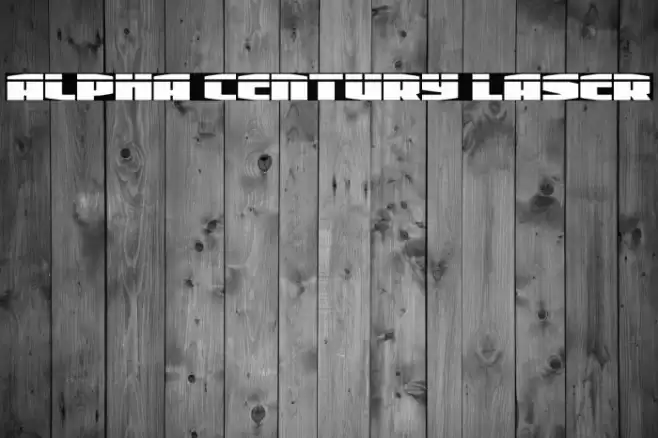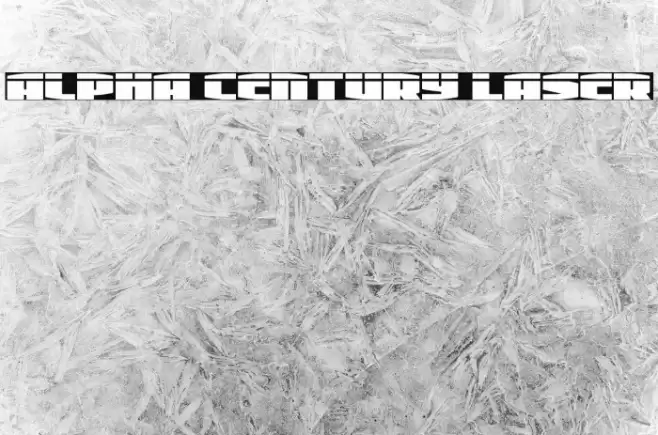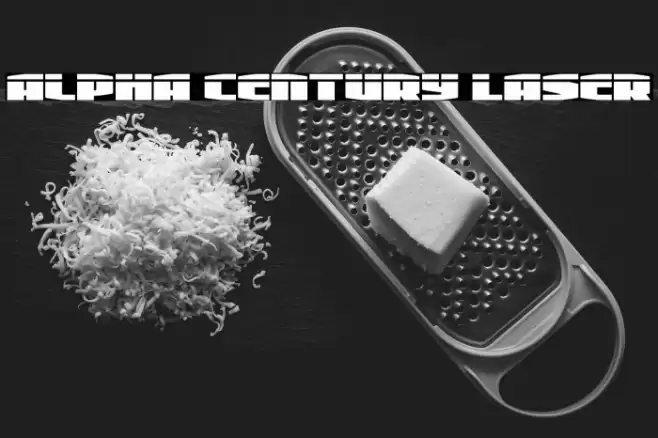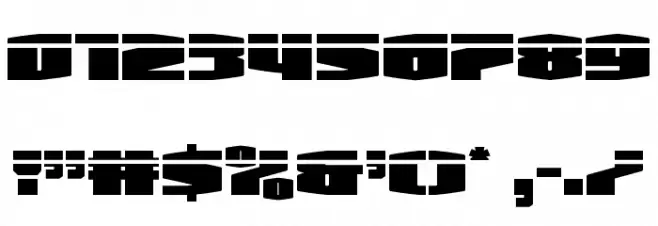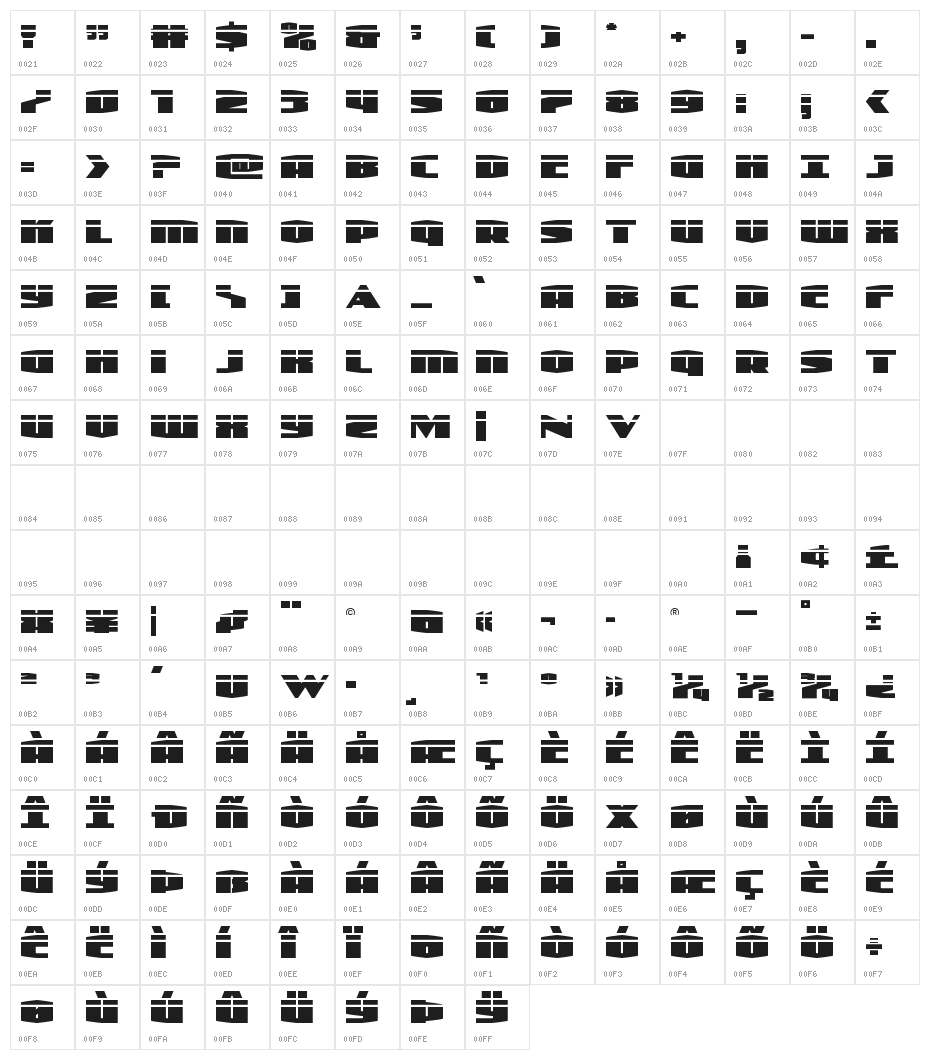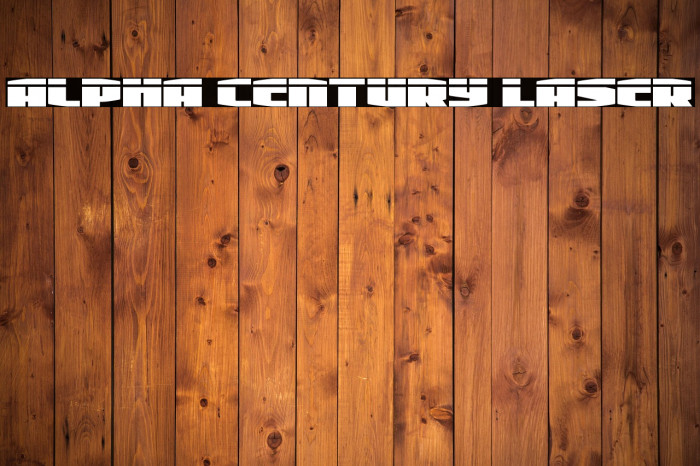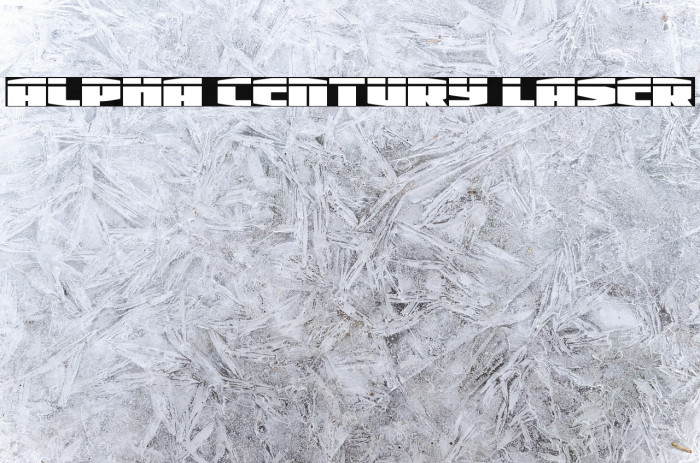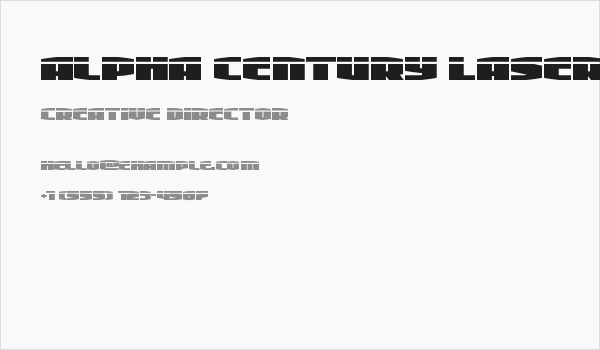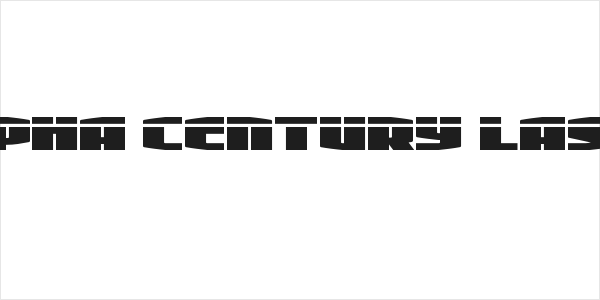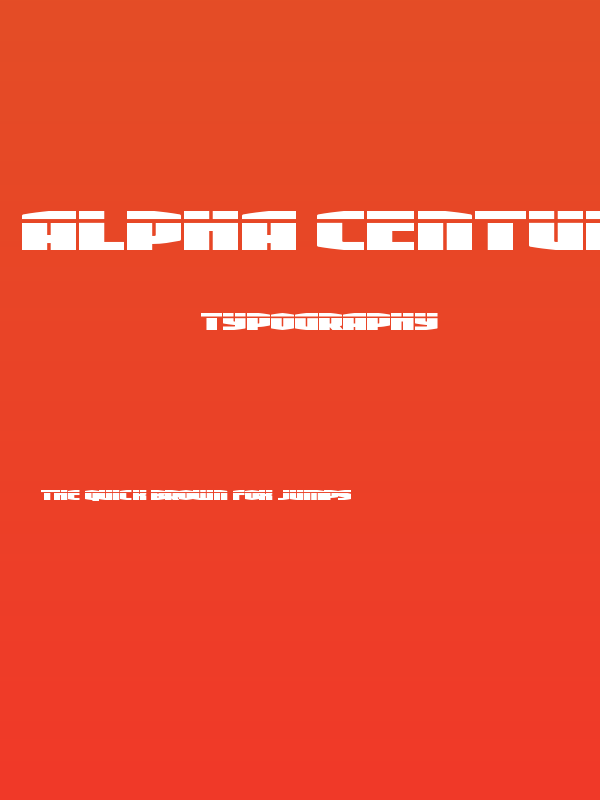
Alpha Century Laser Font
Alpha Century Laser Description
This font features a futuristic and bold design, characterized by its geometric and angular shapes. The letters are constructed with a distinct blocky style, giving them a strong and impactful presence. The uppercase and lowercase letters maintain a consistent width, creating a uniform appearance. The numbers and special characters follow the same design principles, ensuring cohesion across all elements. The font's unique style makes it suitable for projects that require a modern and technological aesthetic.
A futuristic, bold font with geometric and angular shapes from Uncategorized fonts.
- Proposed Projects: Ideal for sci-fi themed designs, technology branding, video game titles, and futuristic posters.